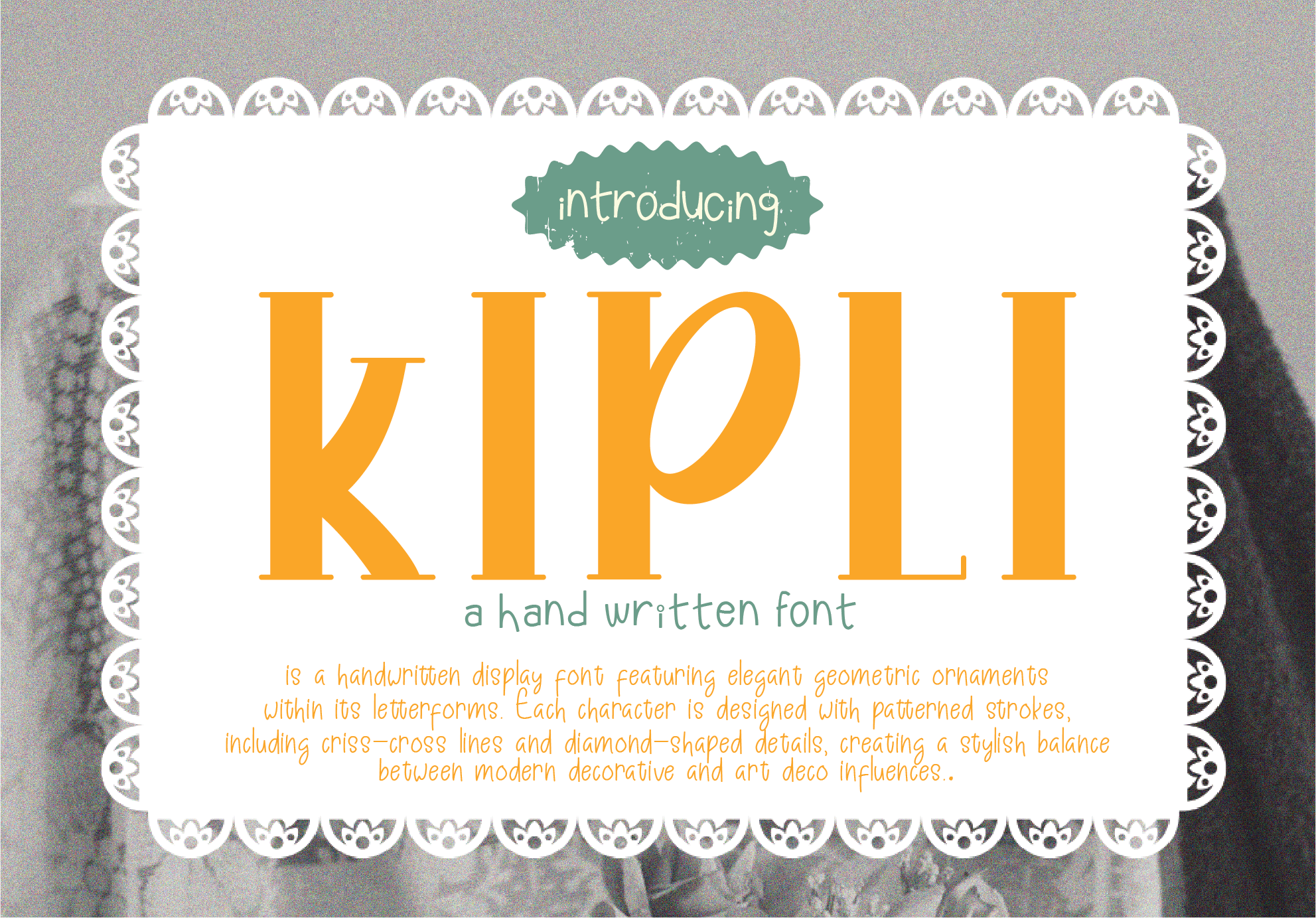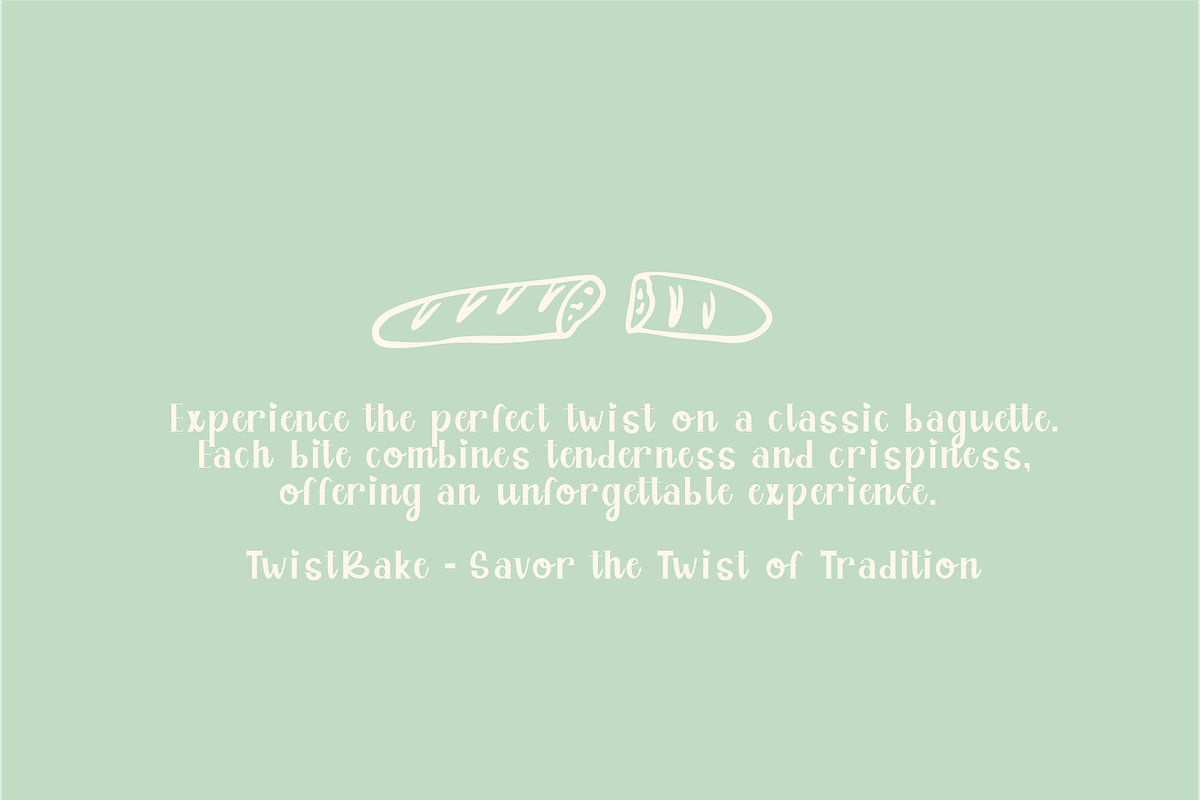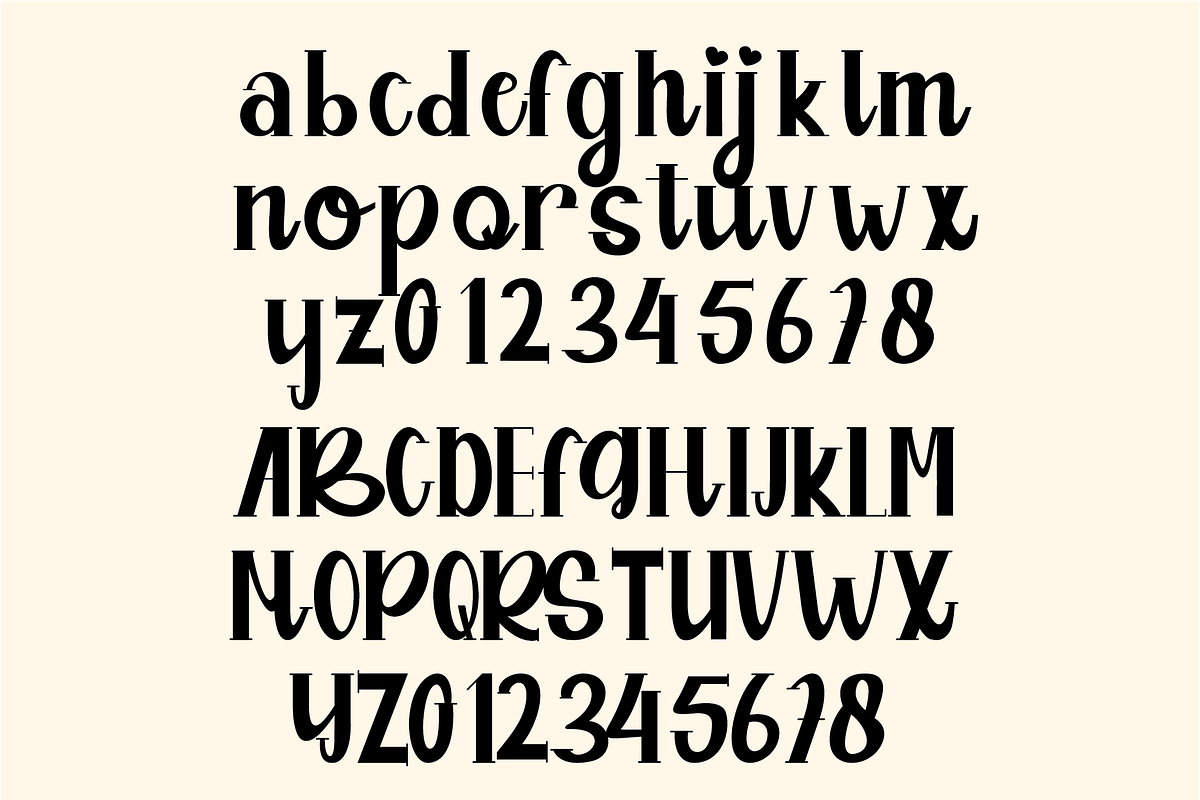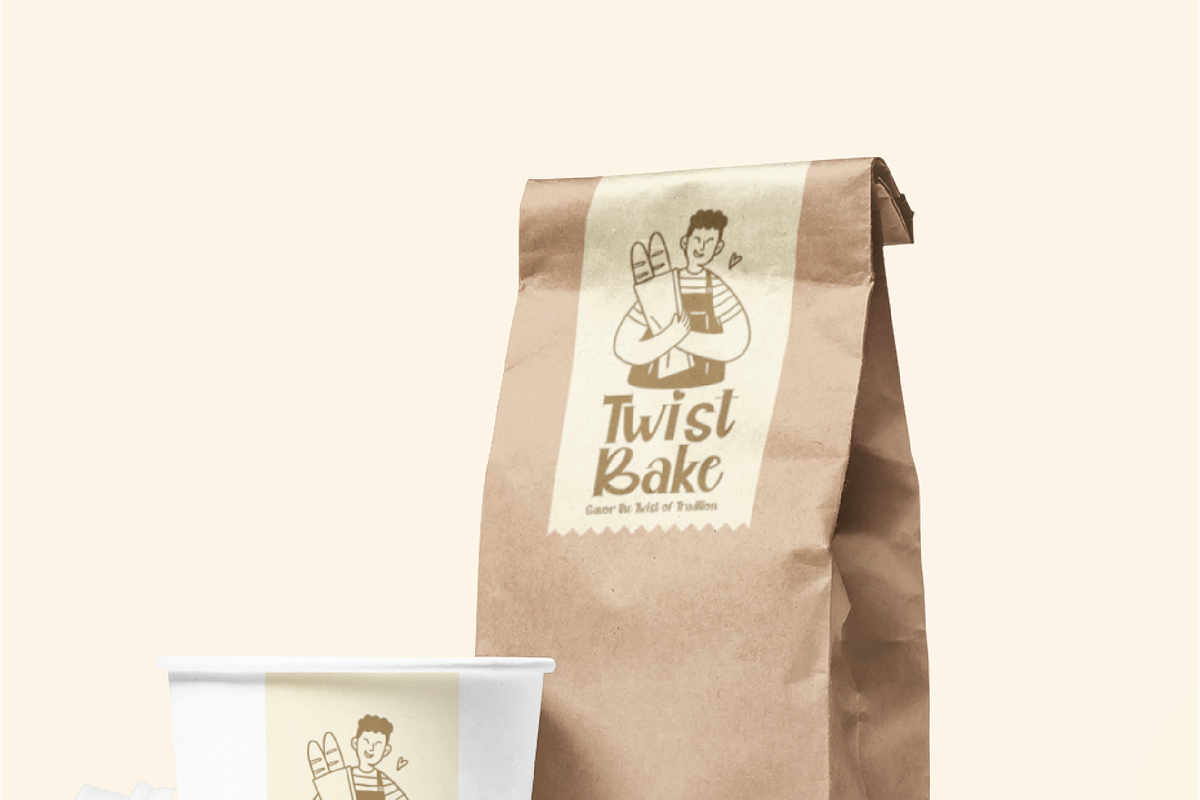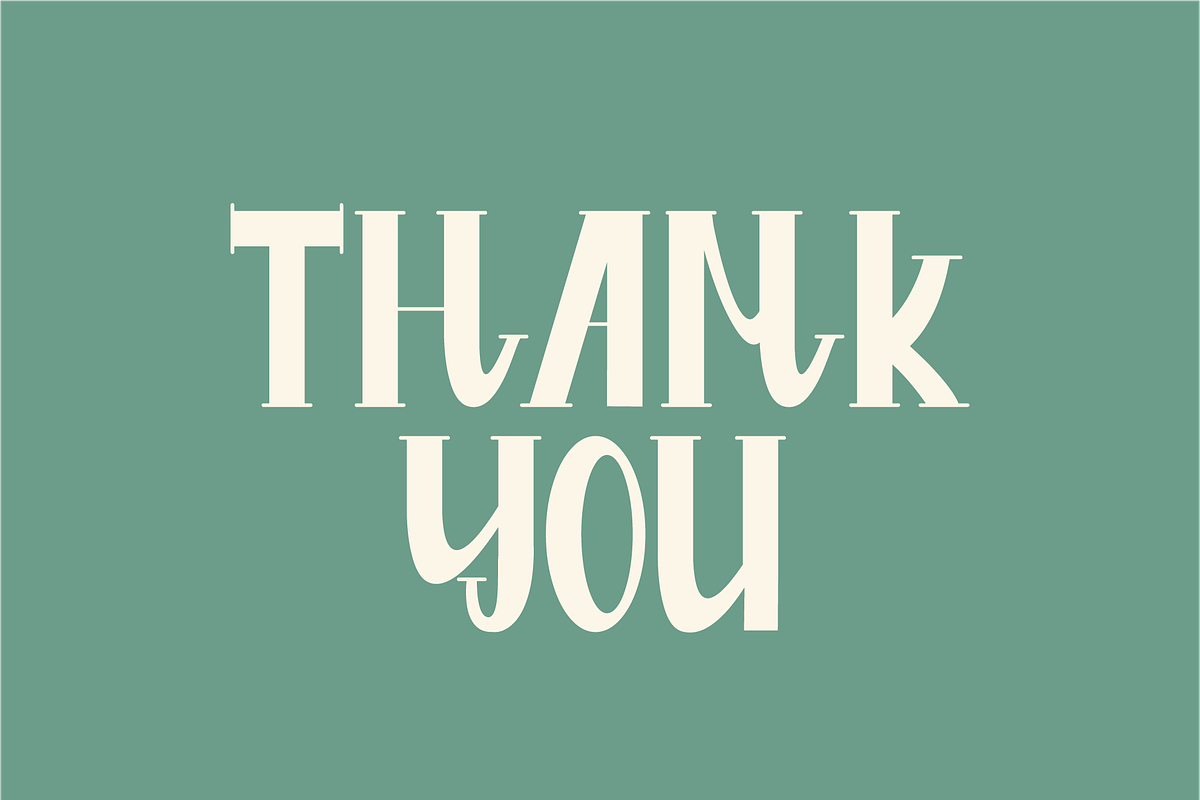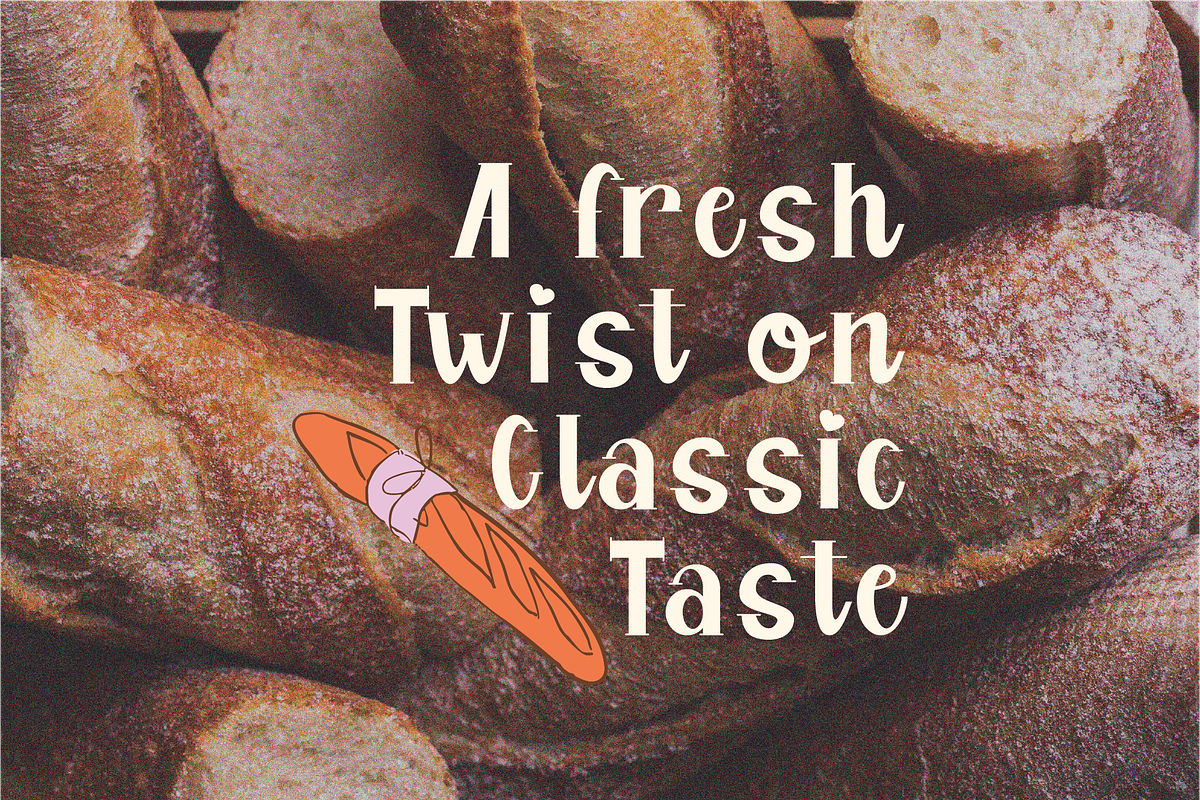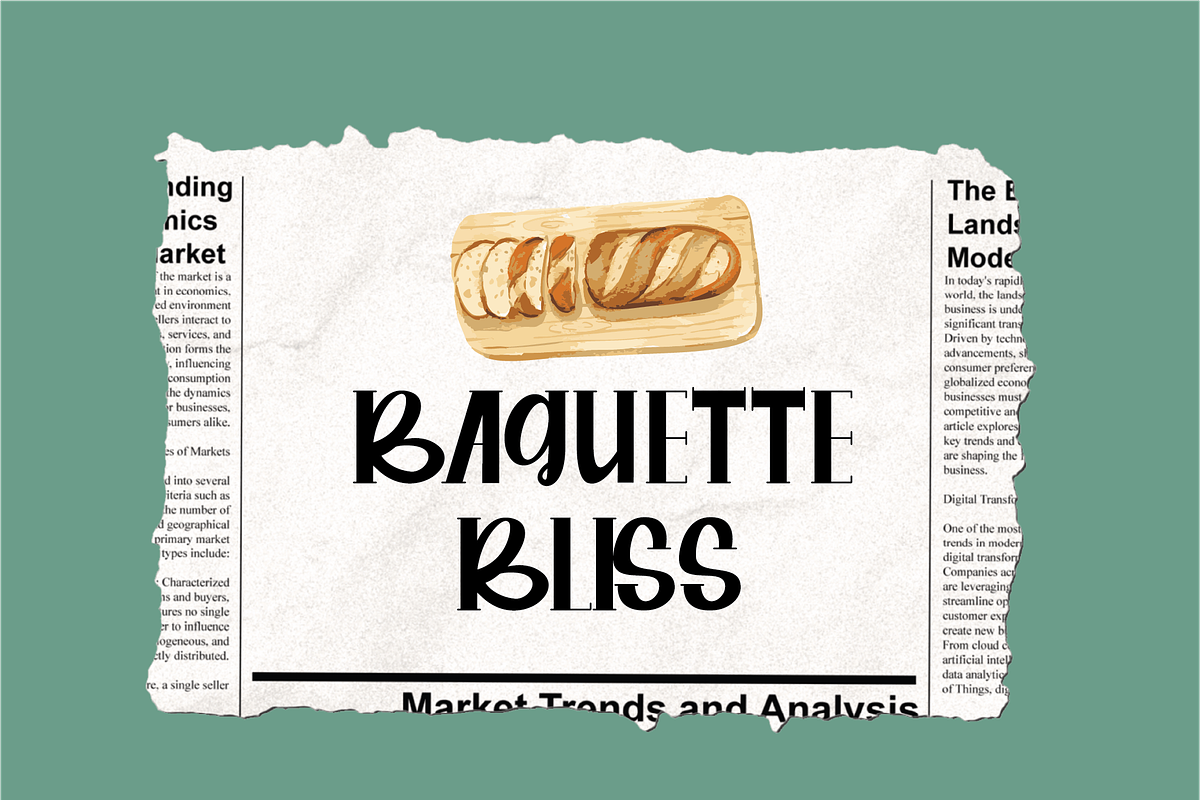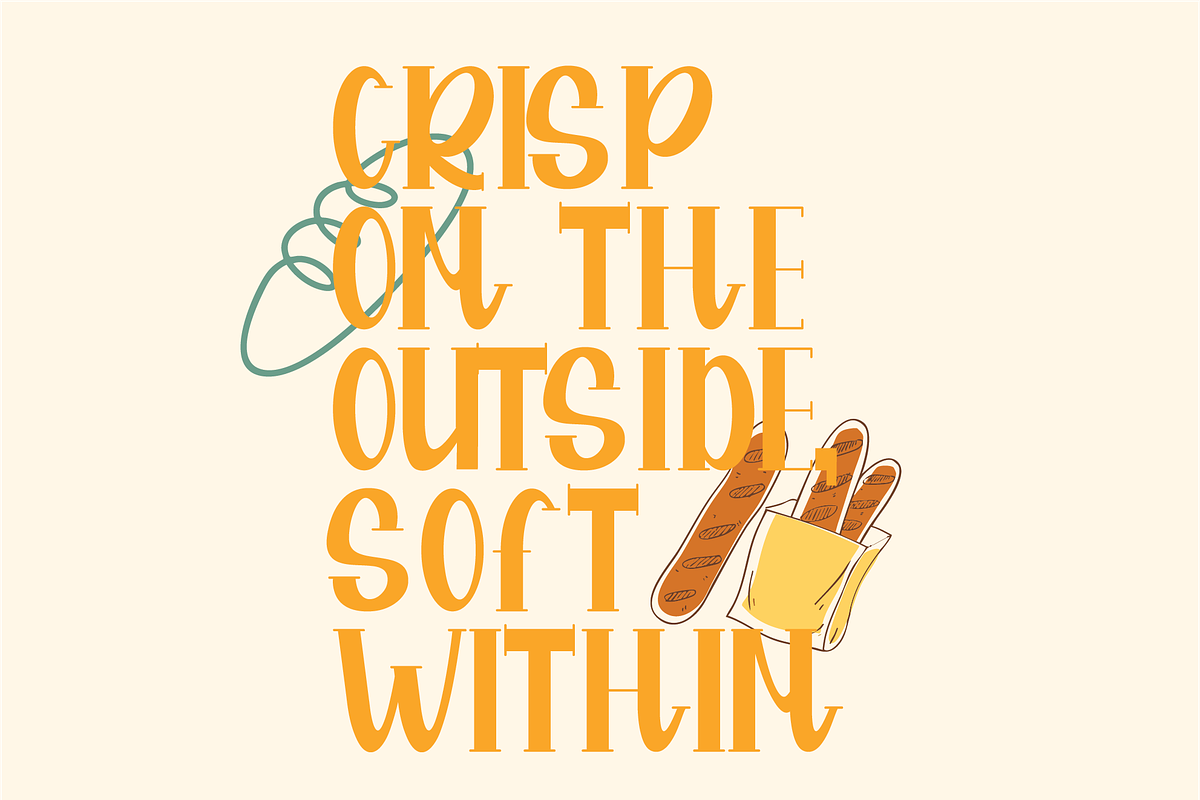
Kipli - Handwritten Font
Kipli he font has a bold, clean design with a playful yet elegant feel. Its straight lines and vibrant orange color give it a modern, energetic vibe, making it suitable for creative and contemporary projects.